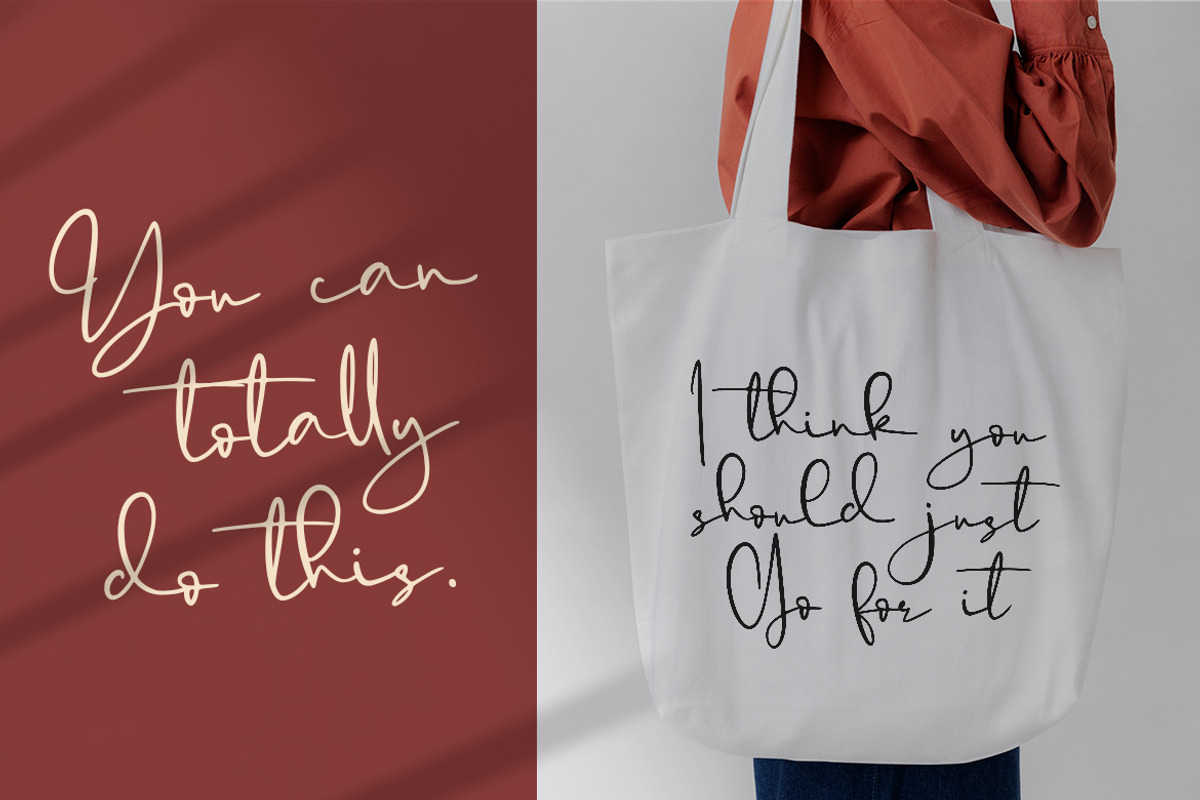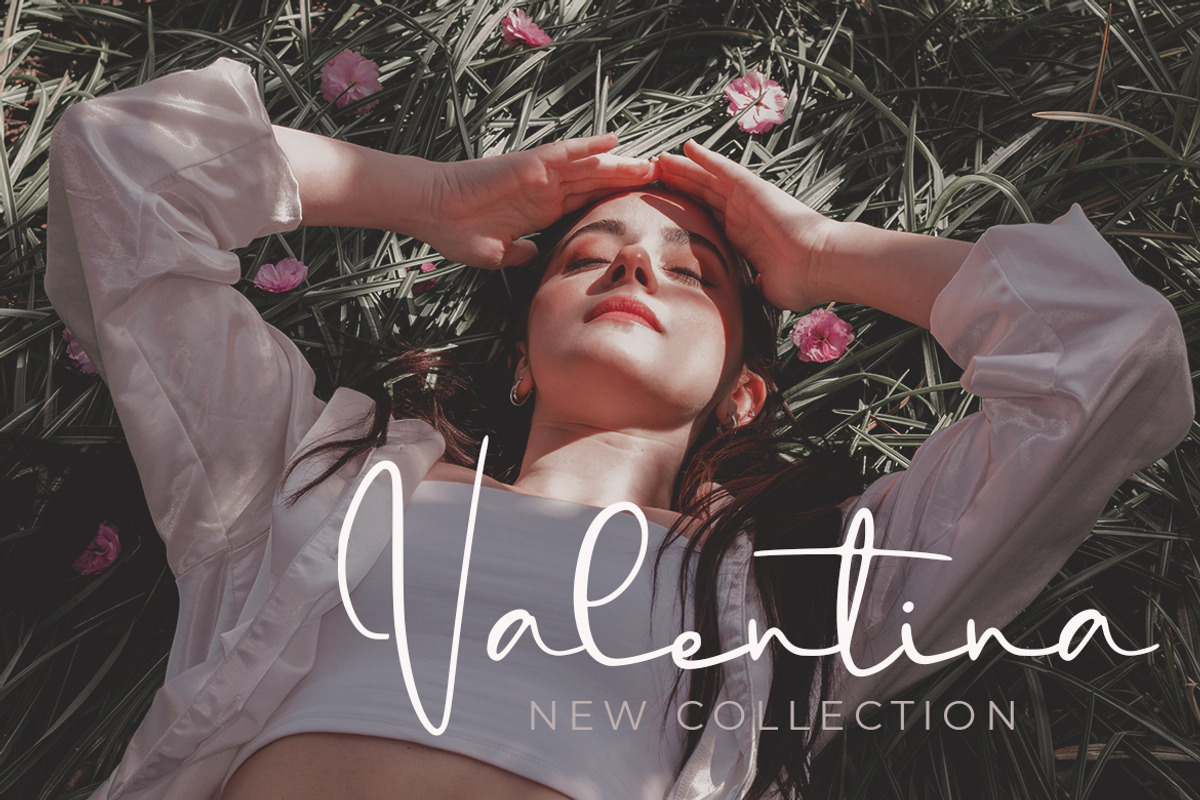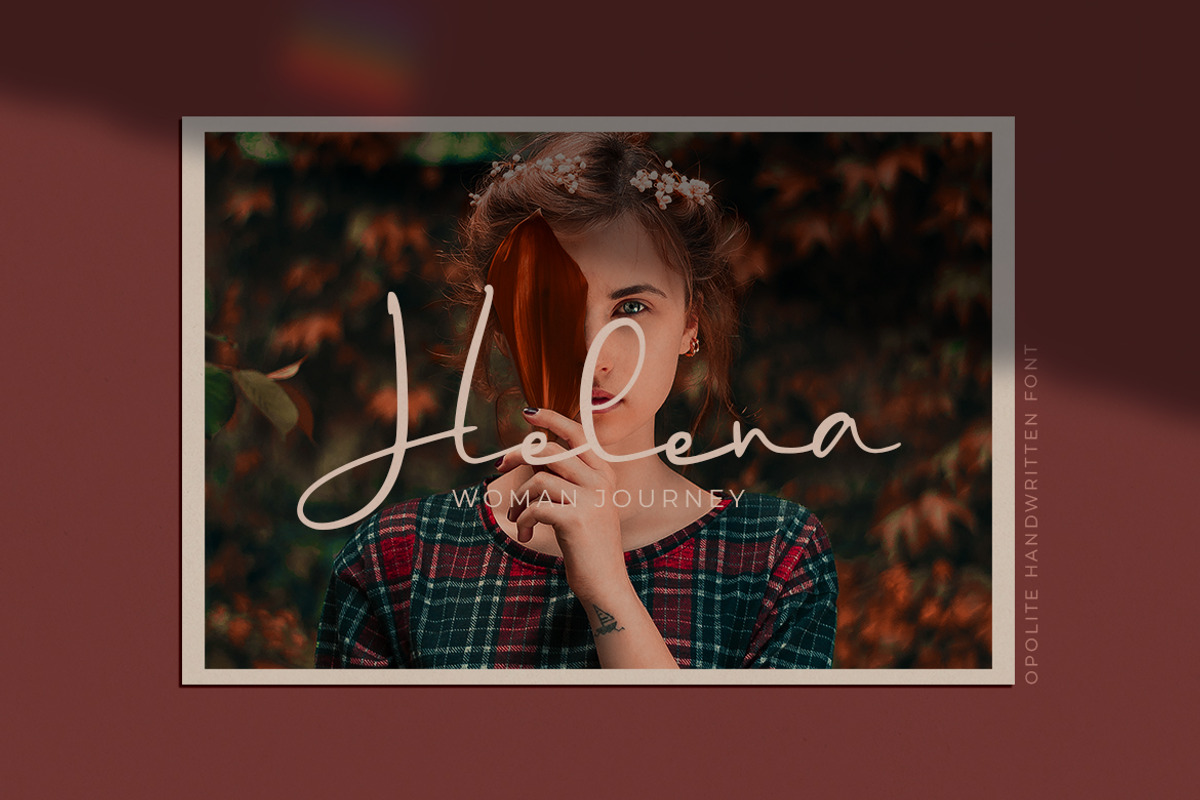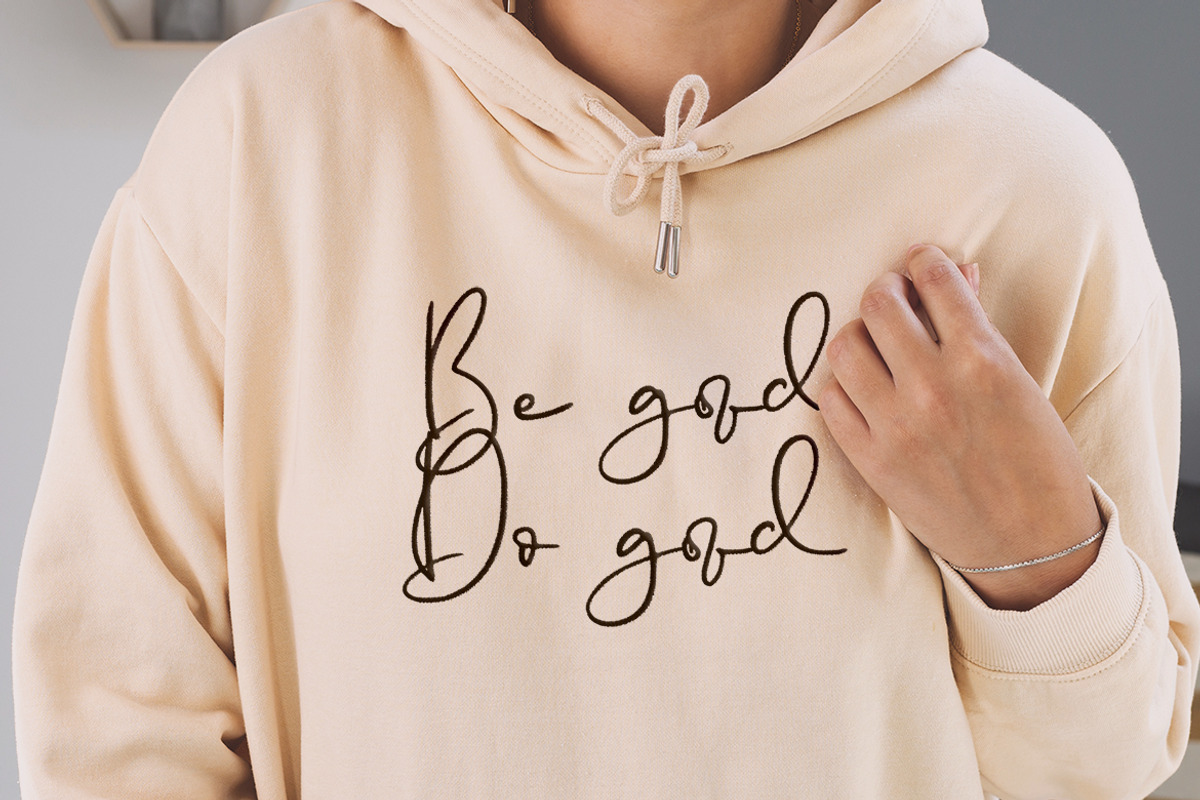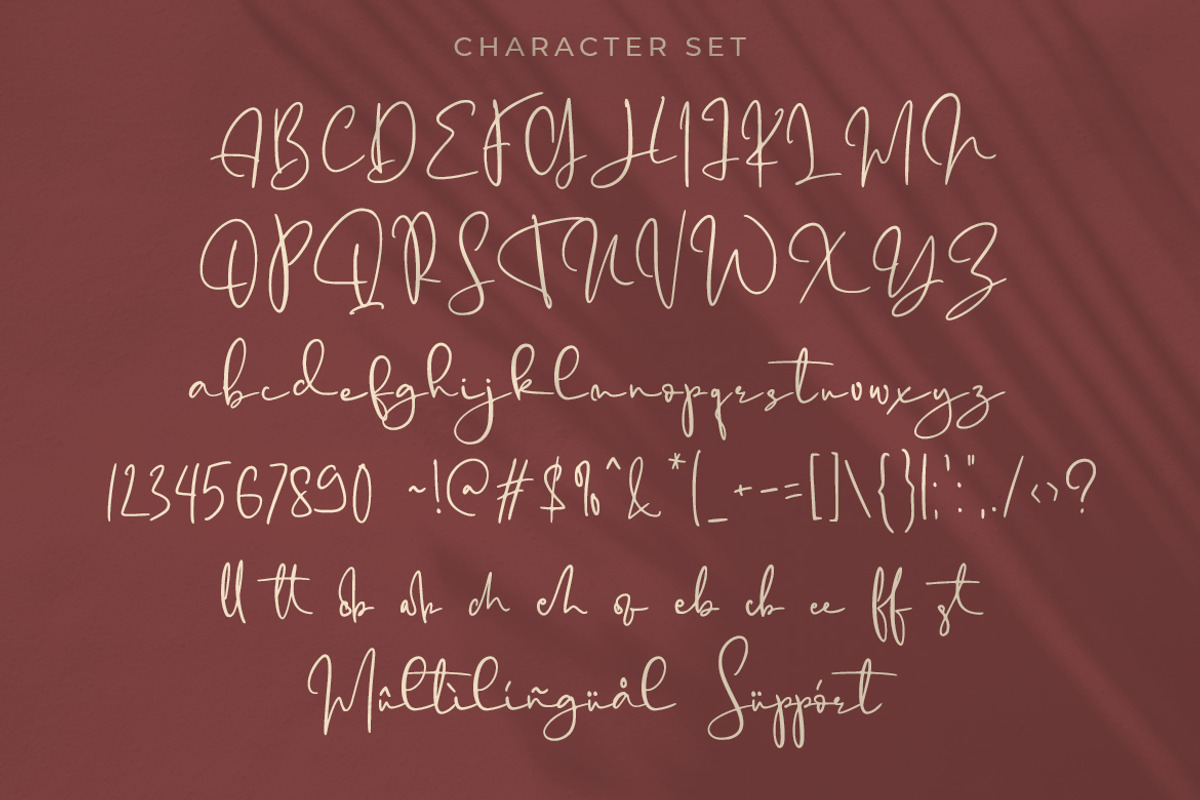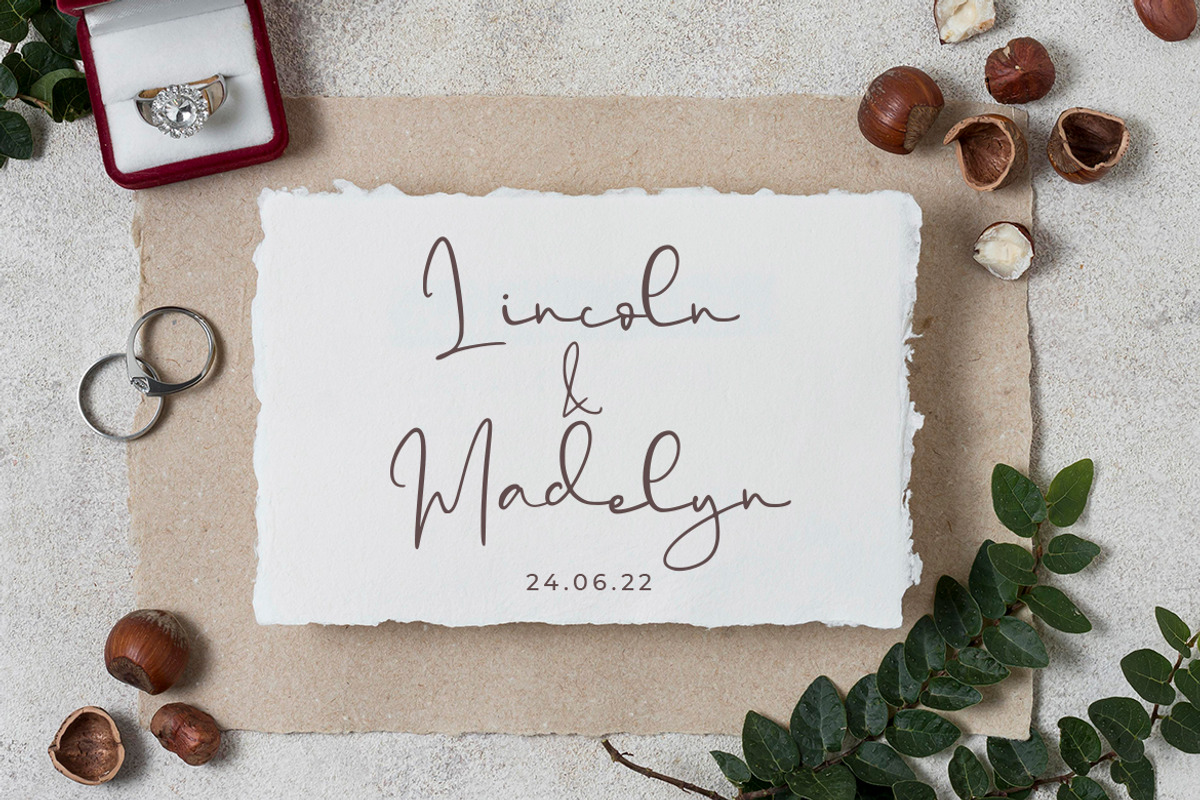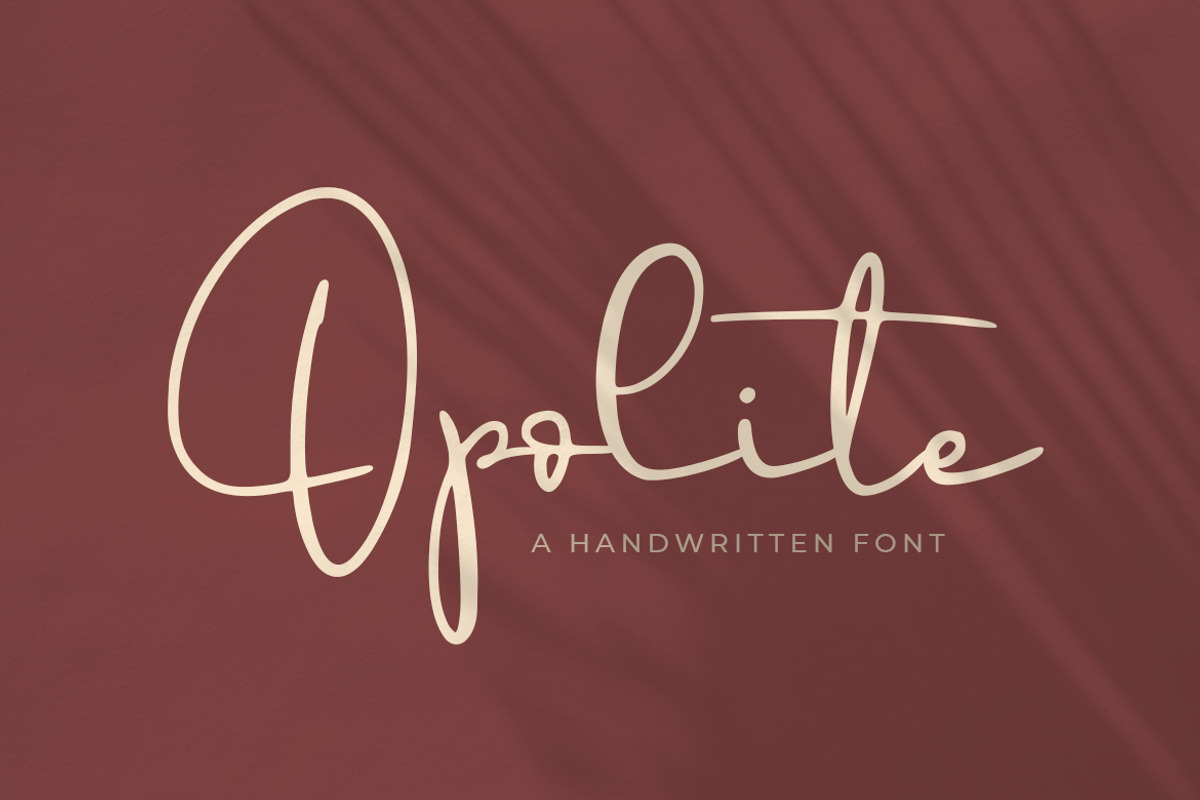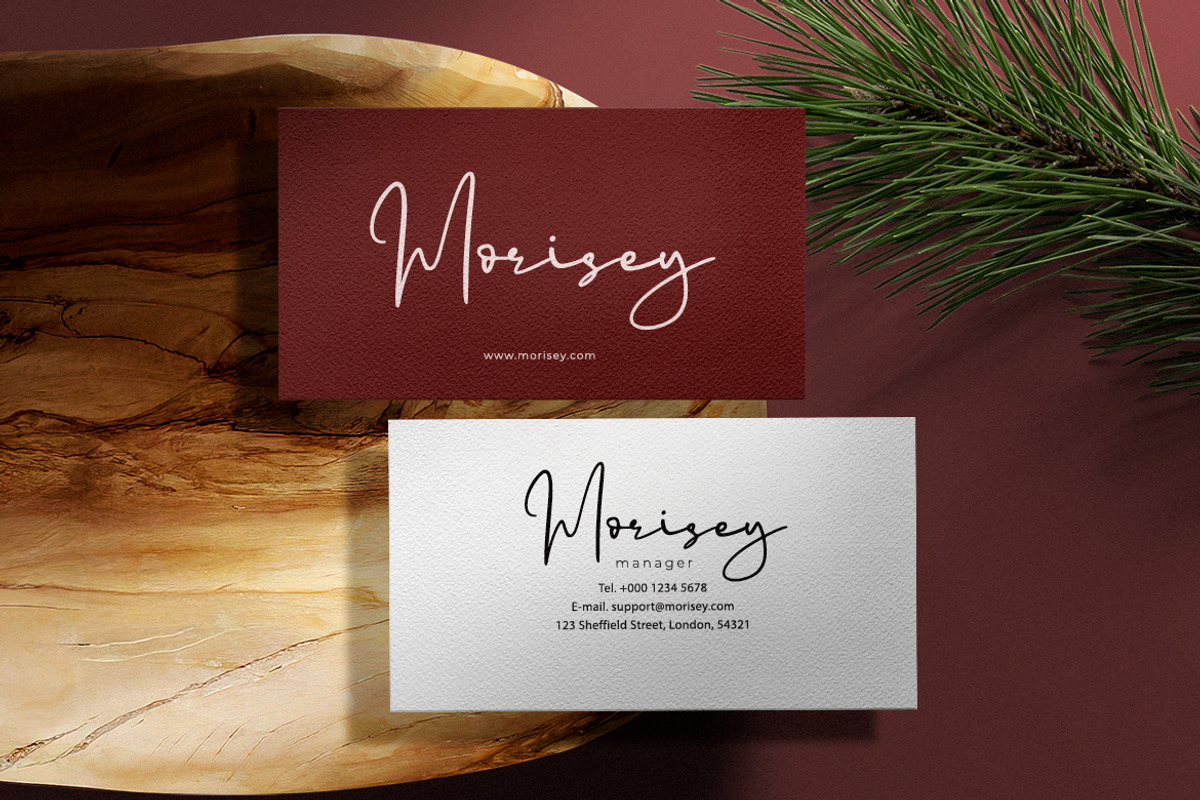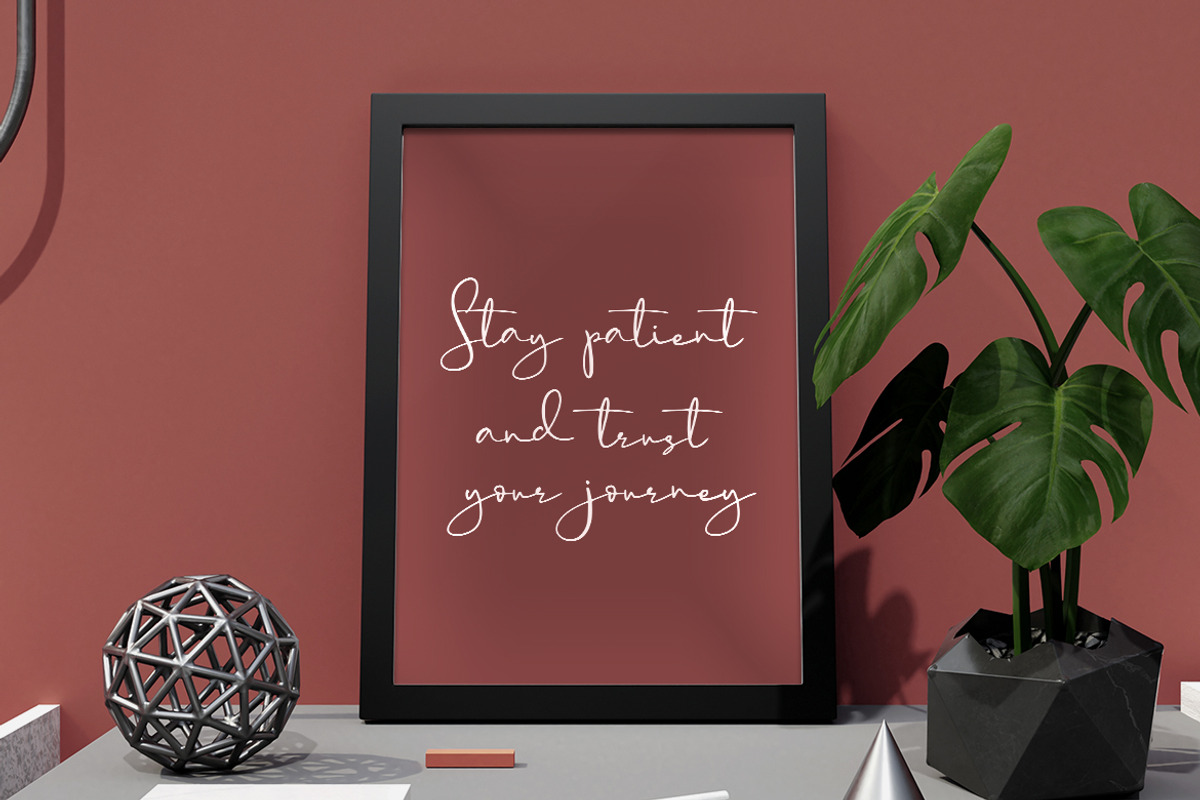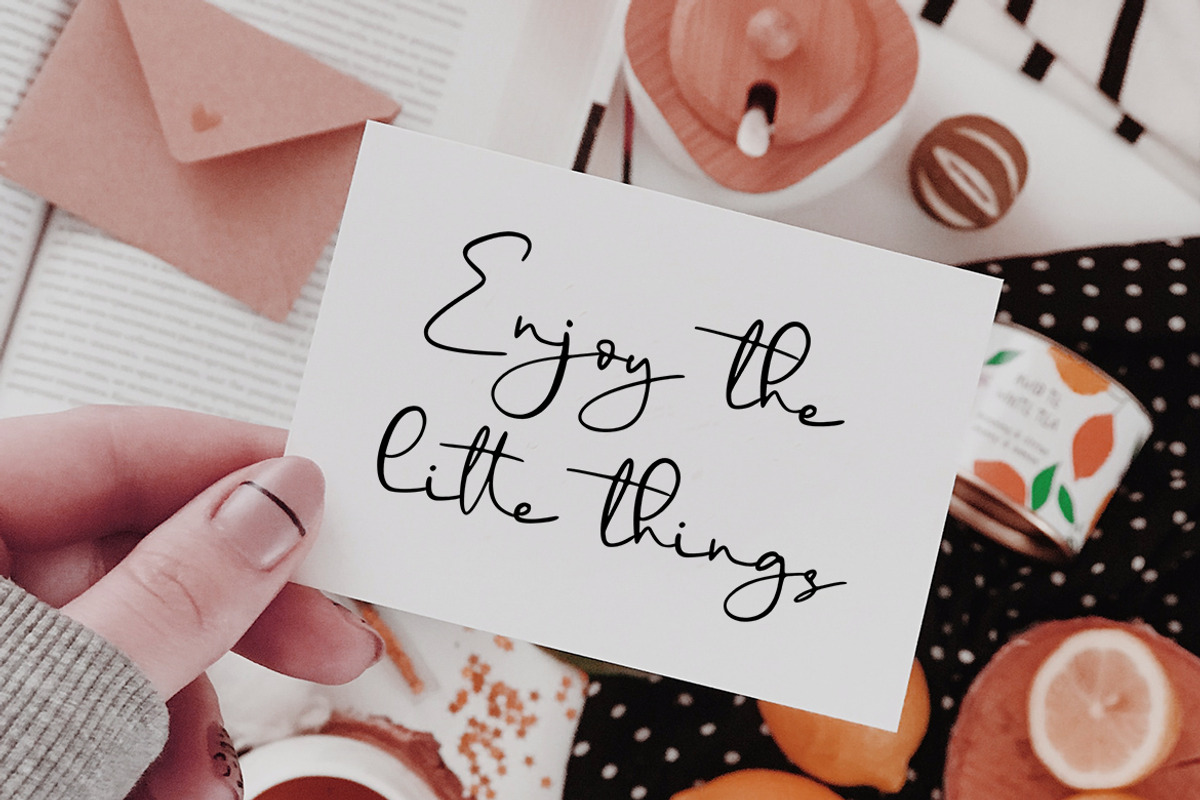
Opolite - a Handwritten Font
Opolite is perfect for many different projects such as logos & branding, invitation, stationery, wedding designs, social media posts, advertisements, product packaging, product designs, label, photography, watermark, special events, or anything.
- ligature